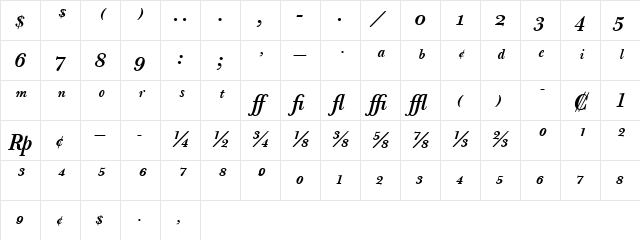
BulmerMTExpert-SemiBold Semi BoldItalic
Style: Semi BoldItalic
Design Context for BulmerMTExpert-SemiBold
BulmerMTExpert-SemiBold is a composed and adaptable typeface that performs quietly and consistently across a wide range of design contexts. The slanted form adds forward momentum and visual energy. Its bold stroke weight gives it real presence on the page.
Pro Tip: Use BulmerMTExpert-SemiBold for emphasis, pull quotes, and subheadings where its slanted energy can add rhythm to the layout.